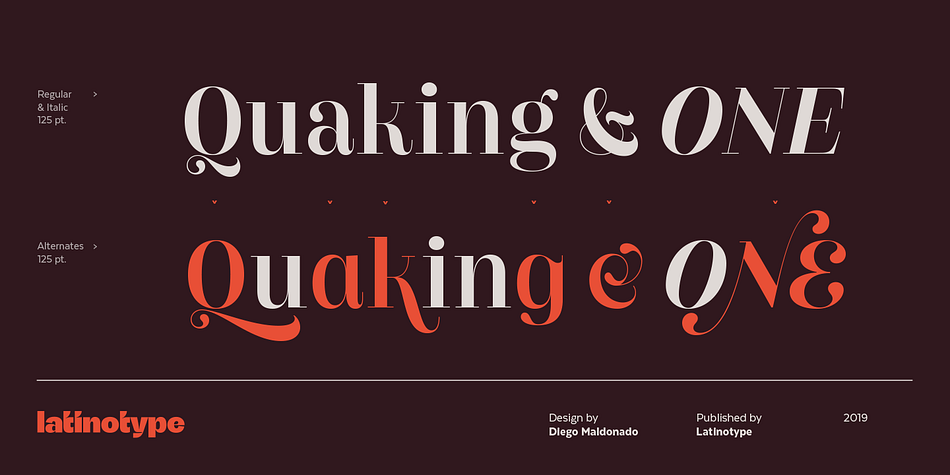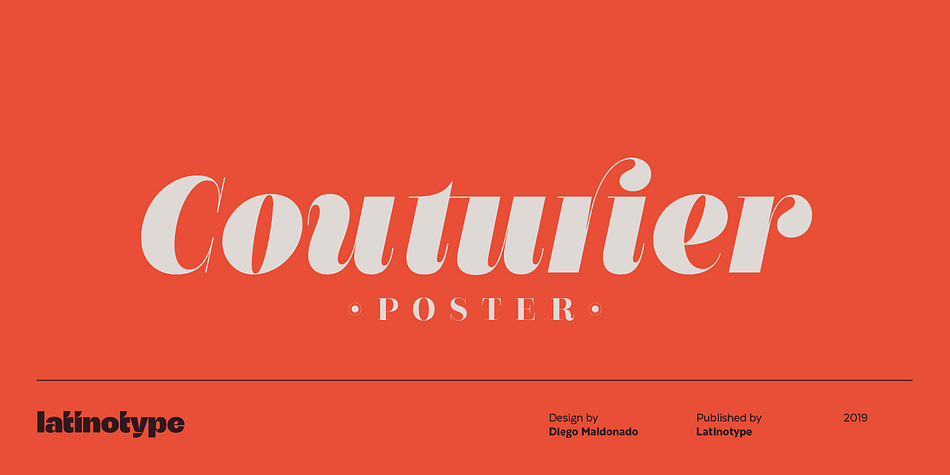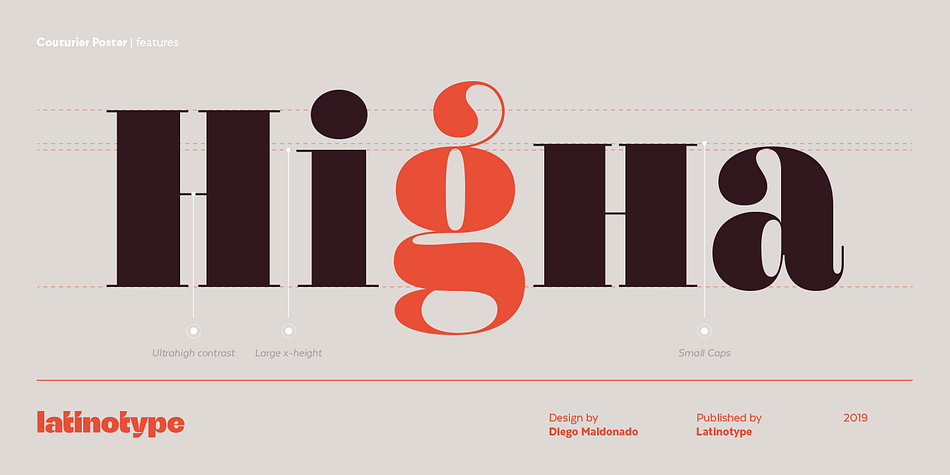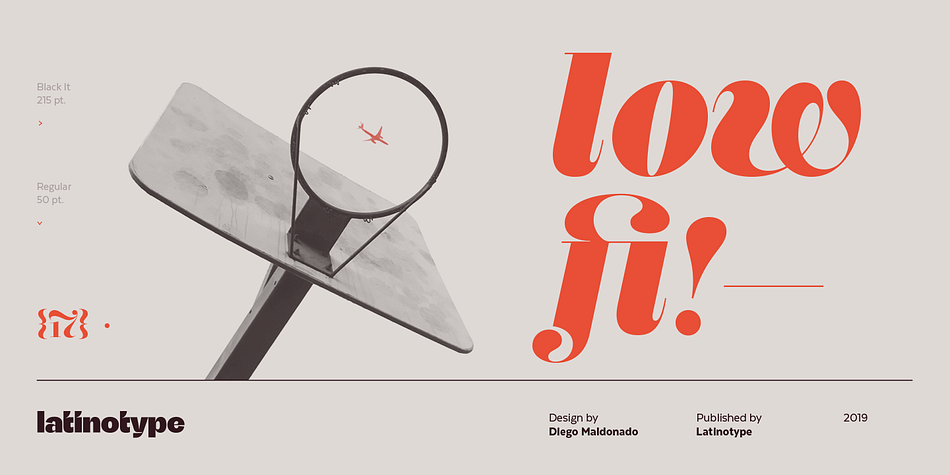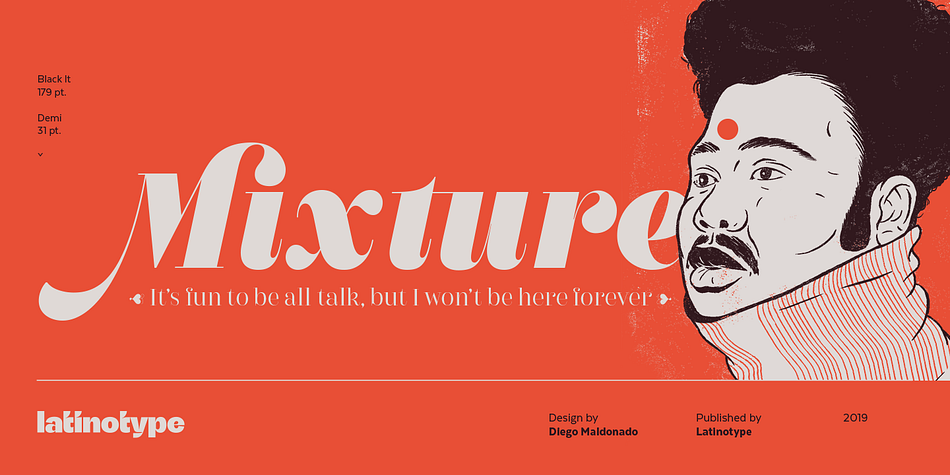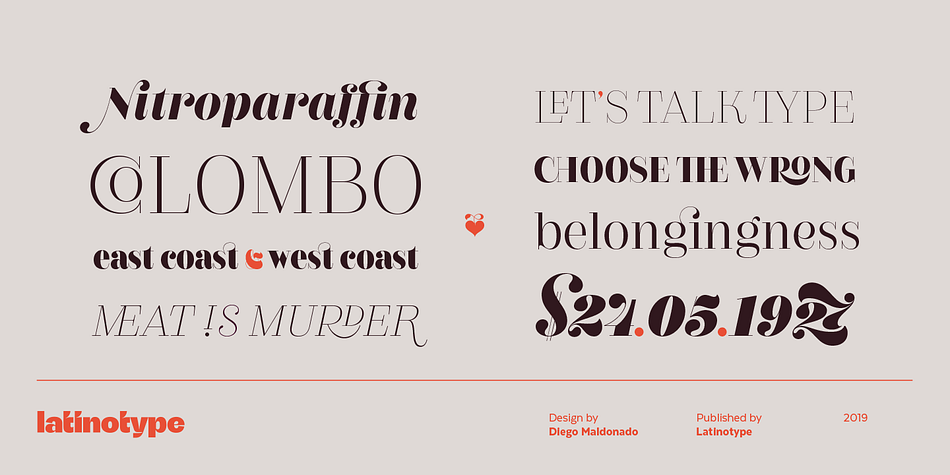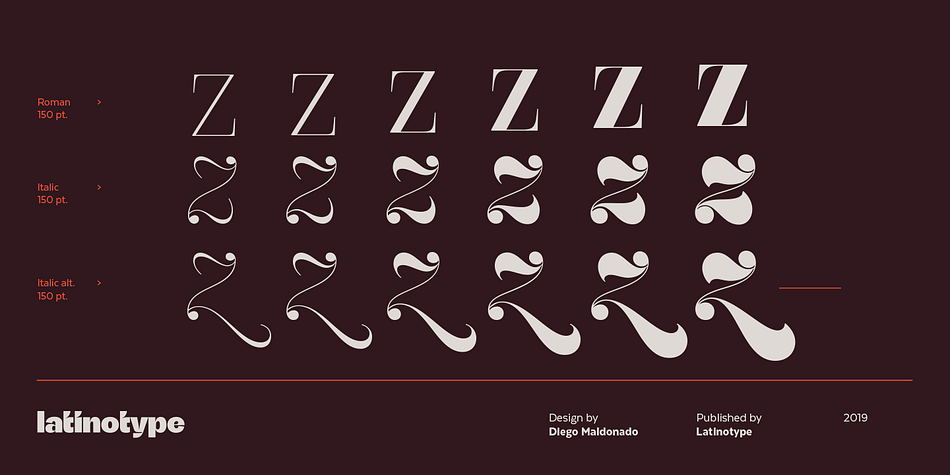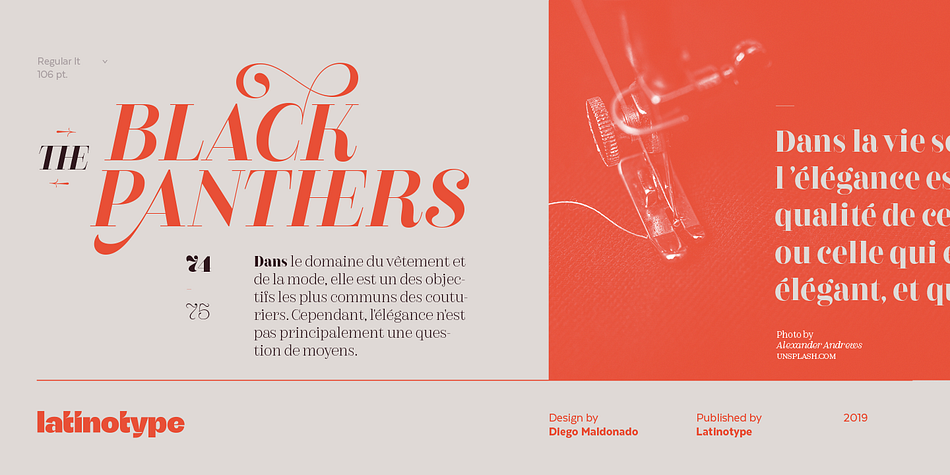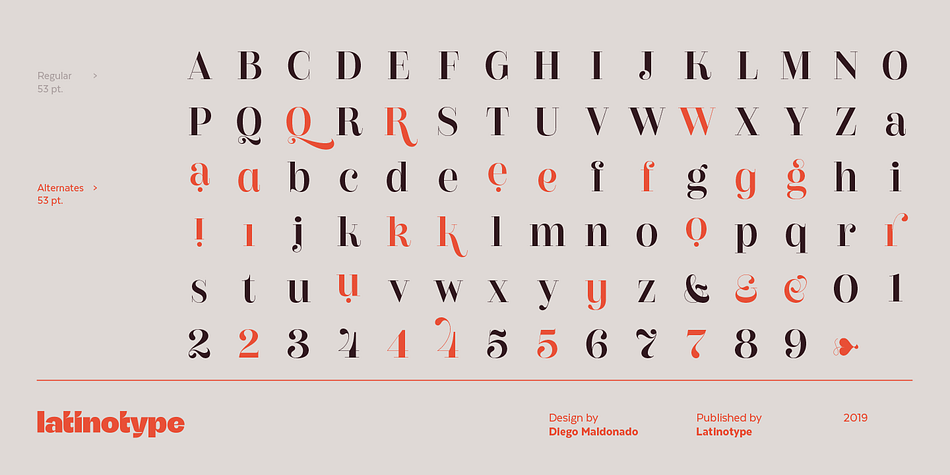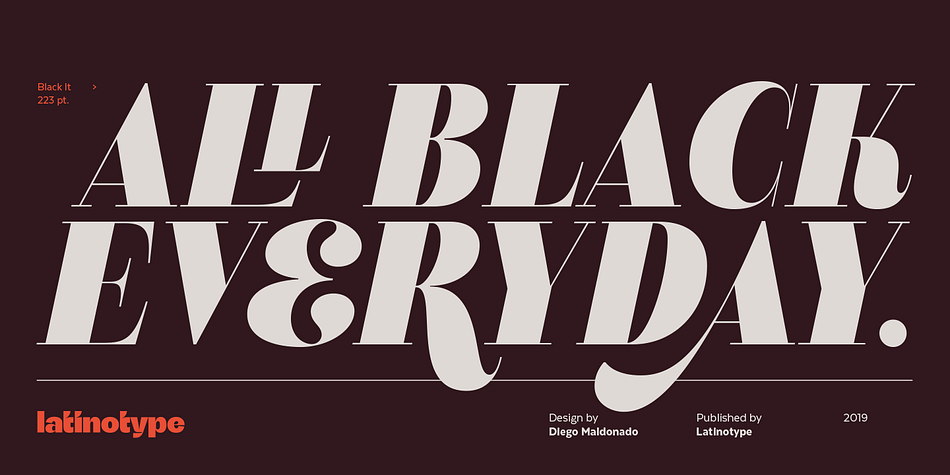
Designed by Diego Maldonado, Couturier Poster is a display serif font family. This typeface has twelve styles and was published by Latinotype.
Elegance flows through Couturier Poster soul. The Couturier’s new cousin has a higher contrast between thin and thick strokes and the family has increased from 8 to 12 styles which are ideal for use at large sizes. Its design—inspired by 18th century Didone typefaces—is heavily influenced by contemporary ideas and makes it suitable for almost anything you can think of.
Couturier Poster comes in 6 weights—from Thin to Black—with matching italics and includes swashes, ligatures, small caps and alternates, which make it a versatile font for a wide range of projects— from the most discreet compositions to showy designs.
Couturier Poster—ideal for use at large text sizes and high impact headlines—matches perfectly with Couturier font; an excellent choice for smaller sizes.
The whole Couturier Poster set contains 1,248 characters that support over 200 Latin-based languages.